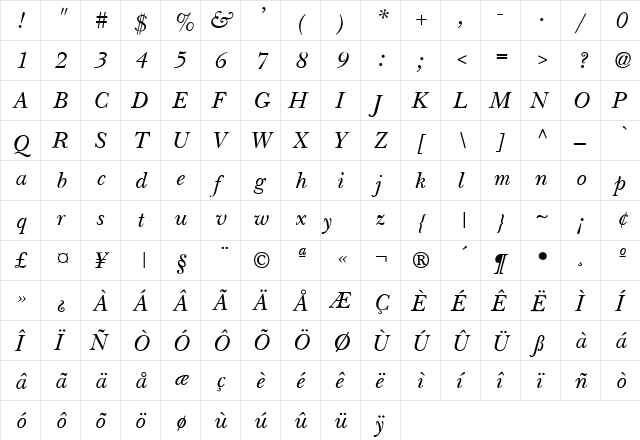
Quibbern Italic Regular
Design Context for Quibbern Italic Typeface
Quibbern Italic takes a measured approach to typography — its balanced proportions and neutral character make it a reliable workhorse for both digital and print work. The slanted form adds forward momentum and visual energy.
Pro Tip: Try Quibbern Italic for annotation and caption copy alongside an upright companion — the contrast in angle creates a dynamic but ordered typographic system.